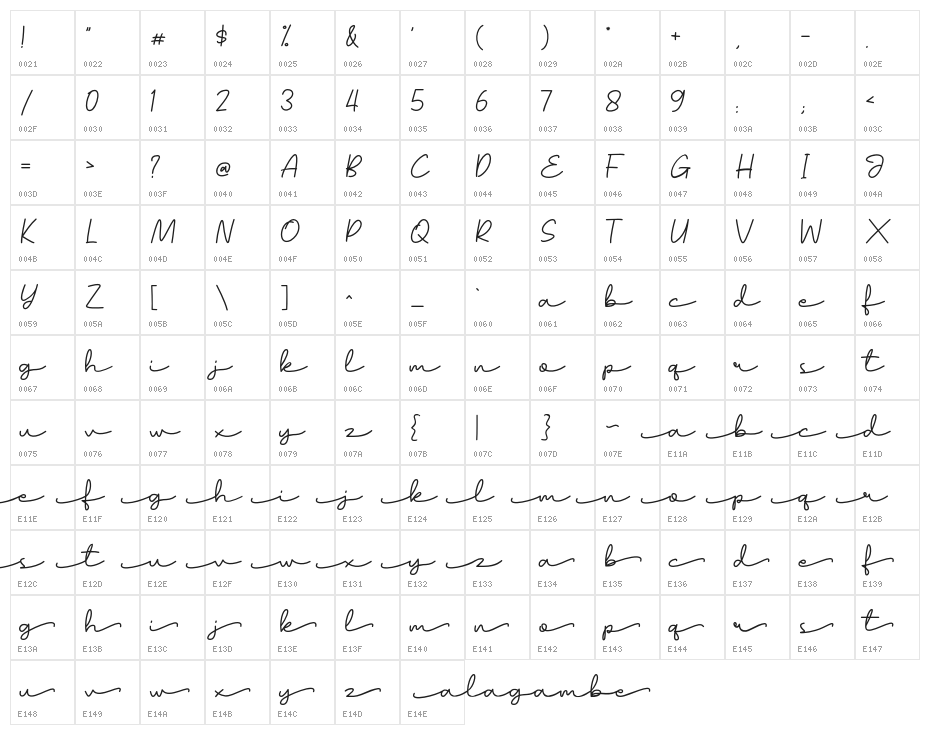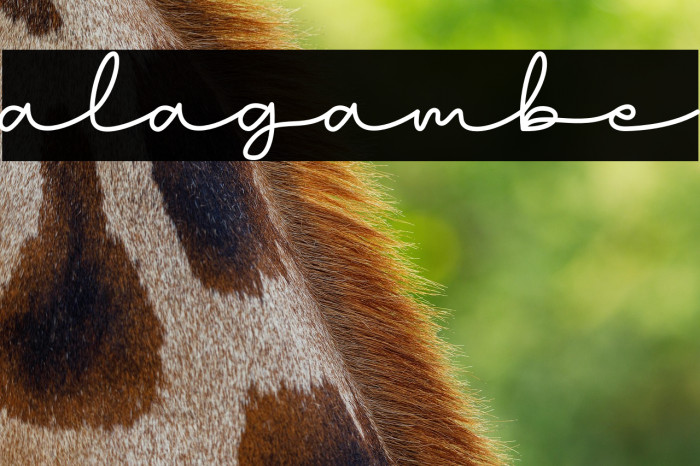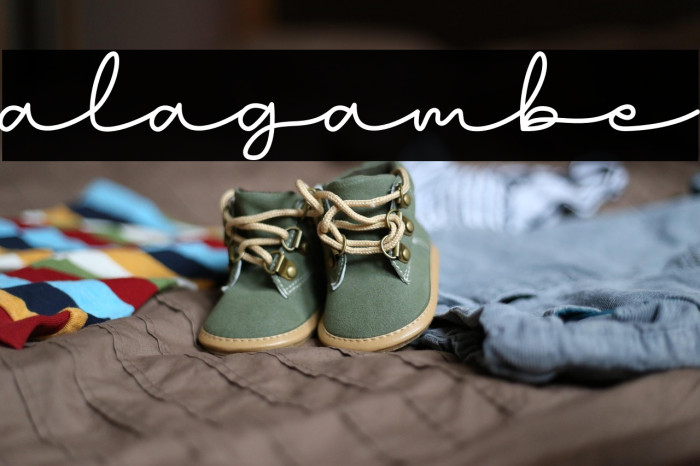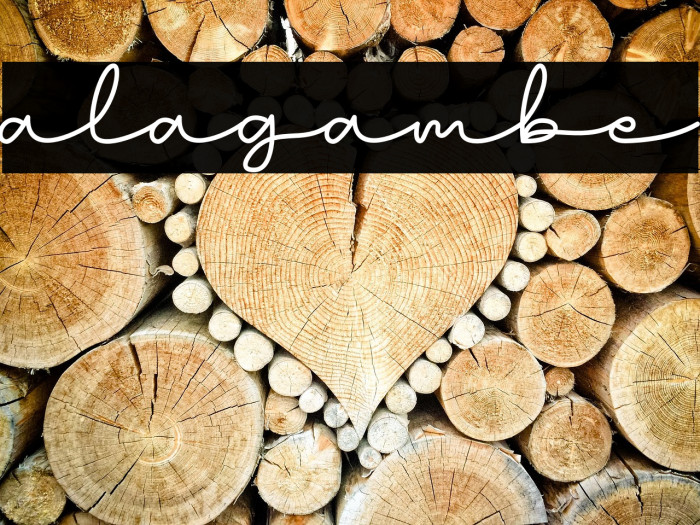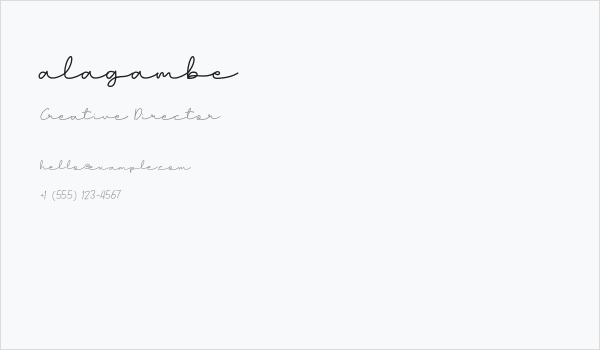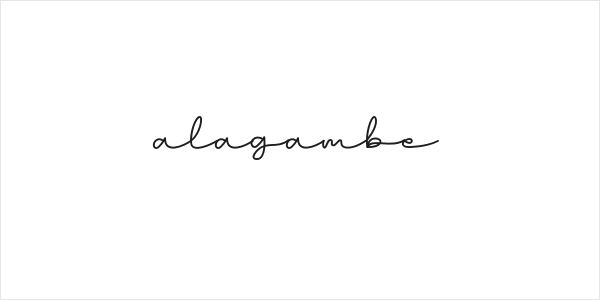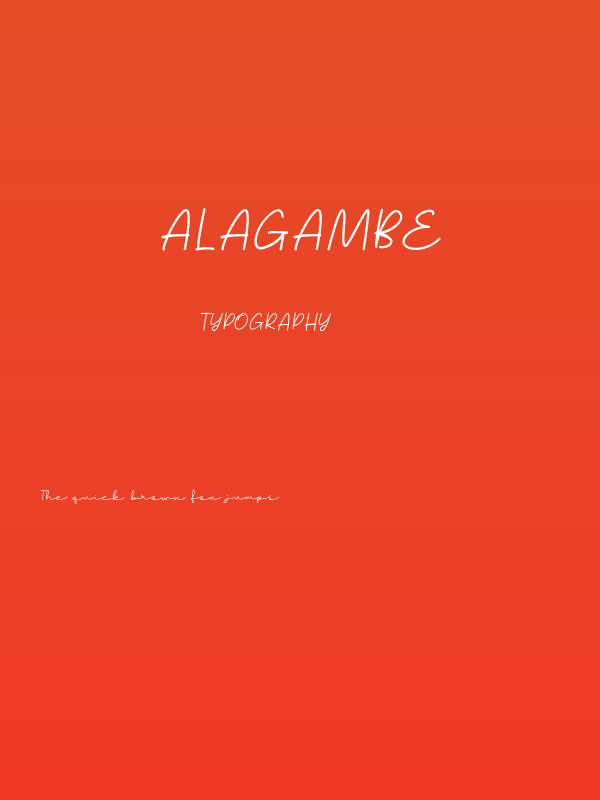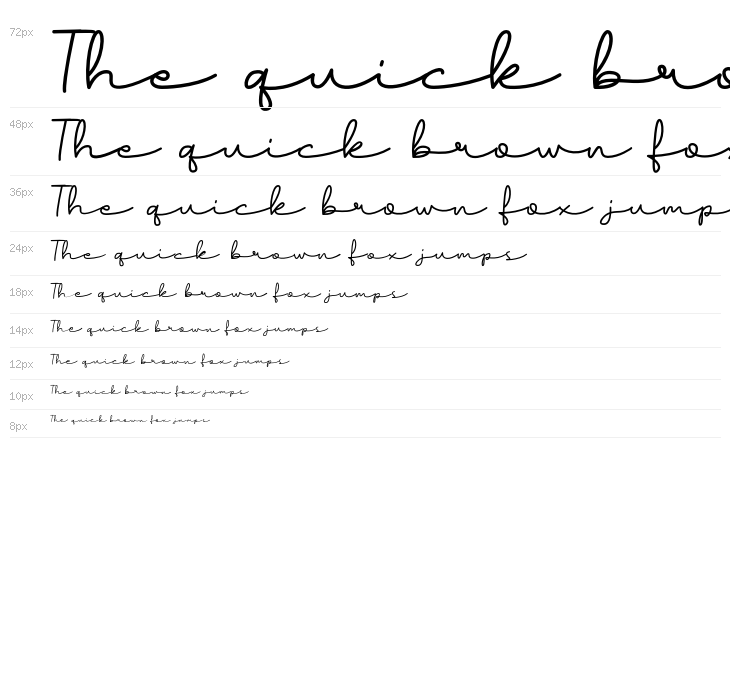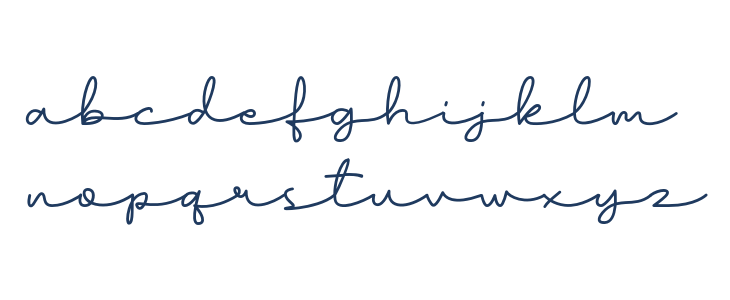
alagambe Font
alagambe Description
This font features a fluid, cursive style that mimics natural handwriting, offering a personal and approachable feel. The uppercase letters are elegantly elongated with smooth curves, while the lowercase letters maintain a consistent flow, enhancing readability. The numerals are clear and distinct, complementing the overall aesthetic. Special characters are integrated seamlessly, maintaining the font's cohesive appearance. The strokes are consistent in width, providing a harmonious look across all characters.